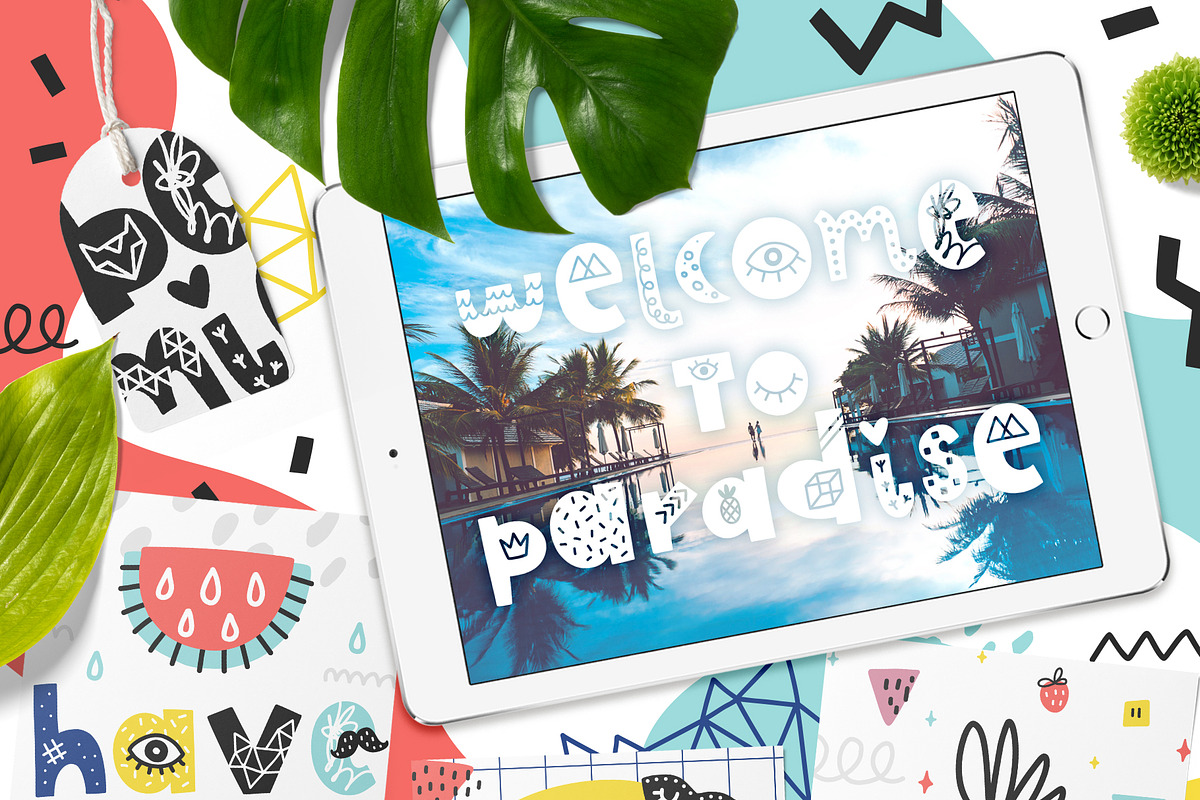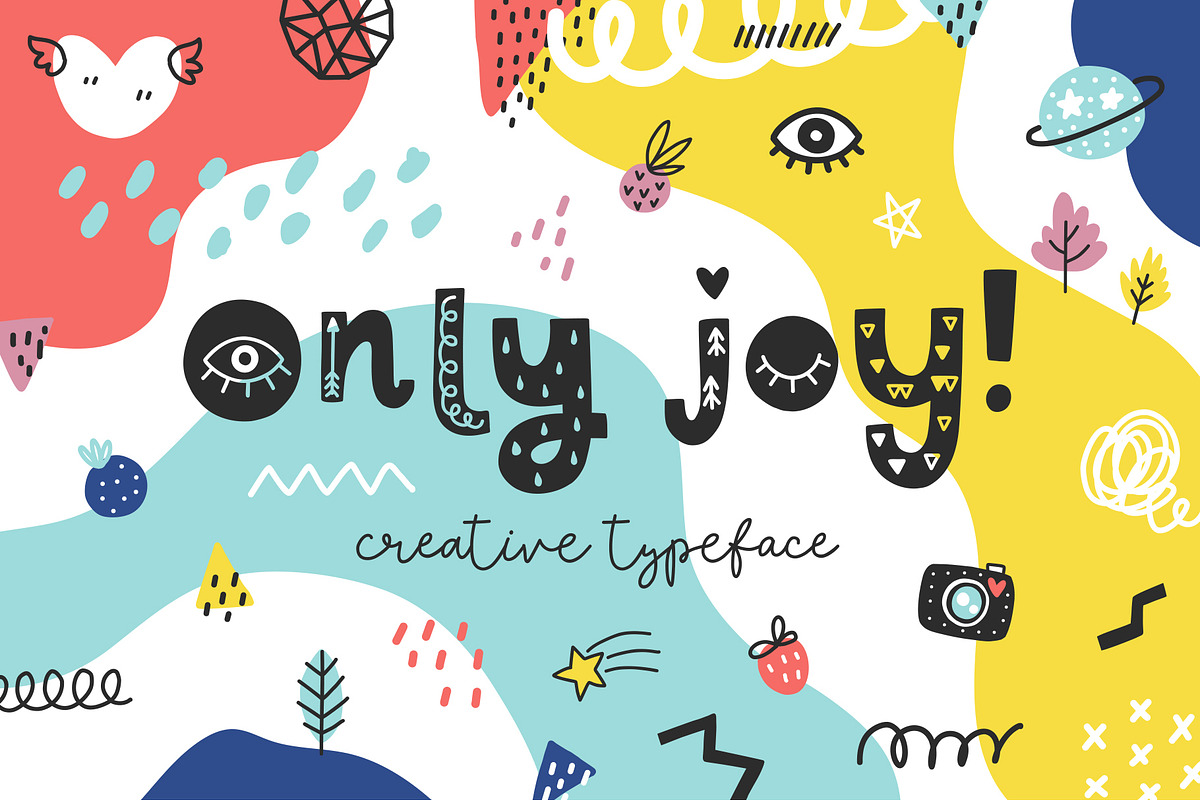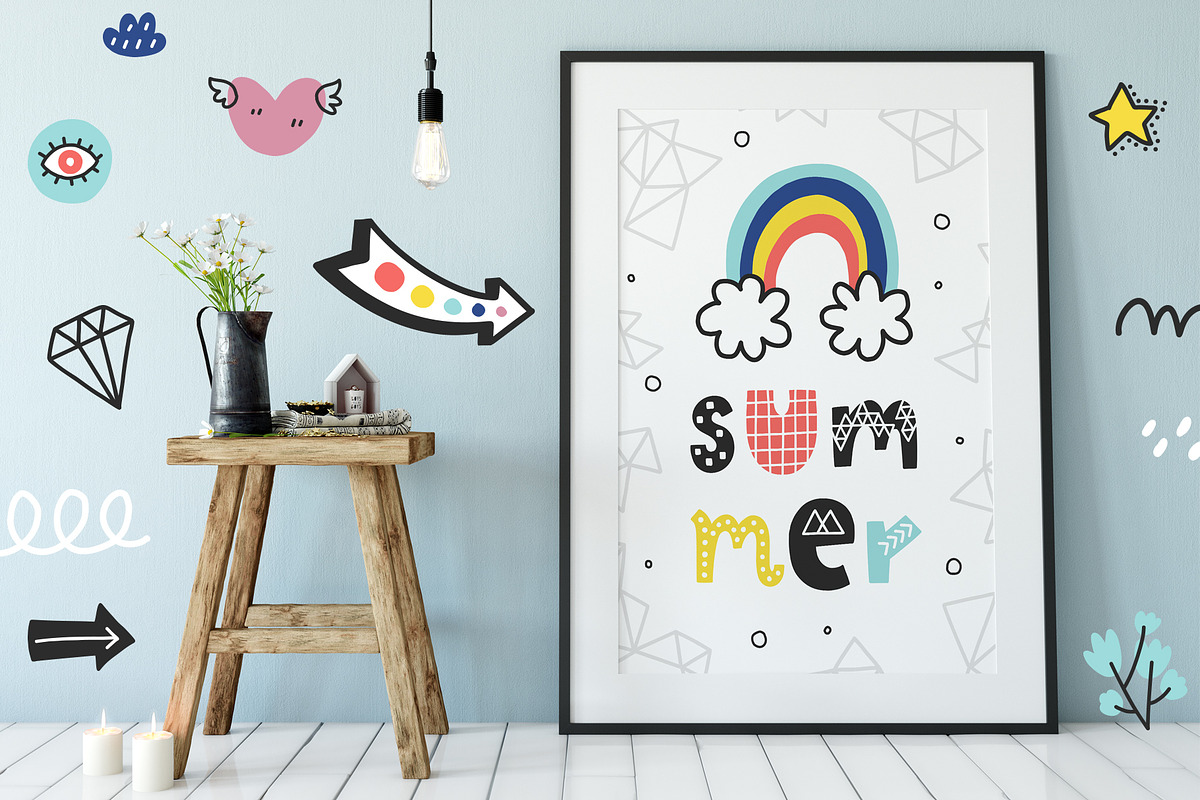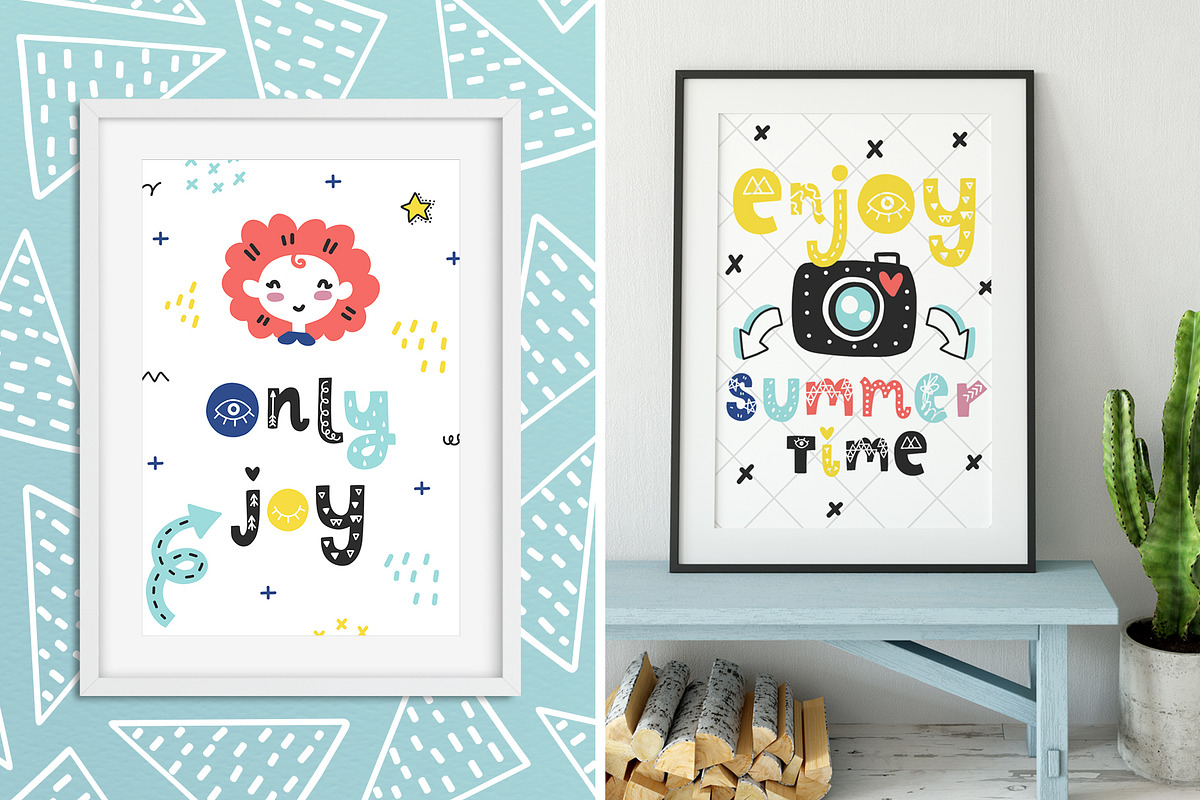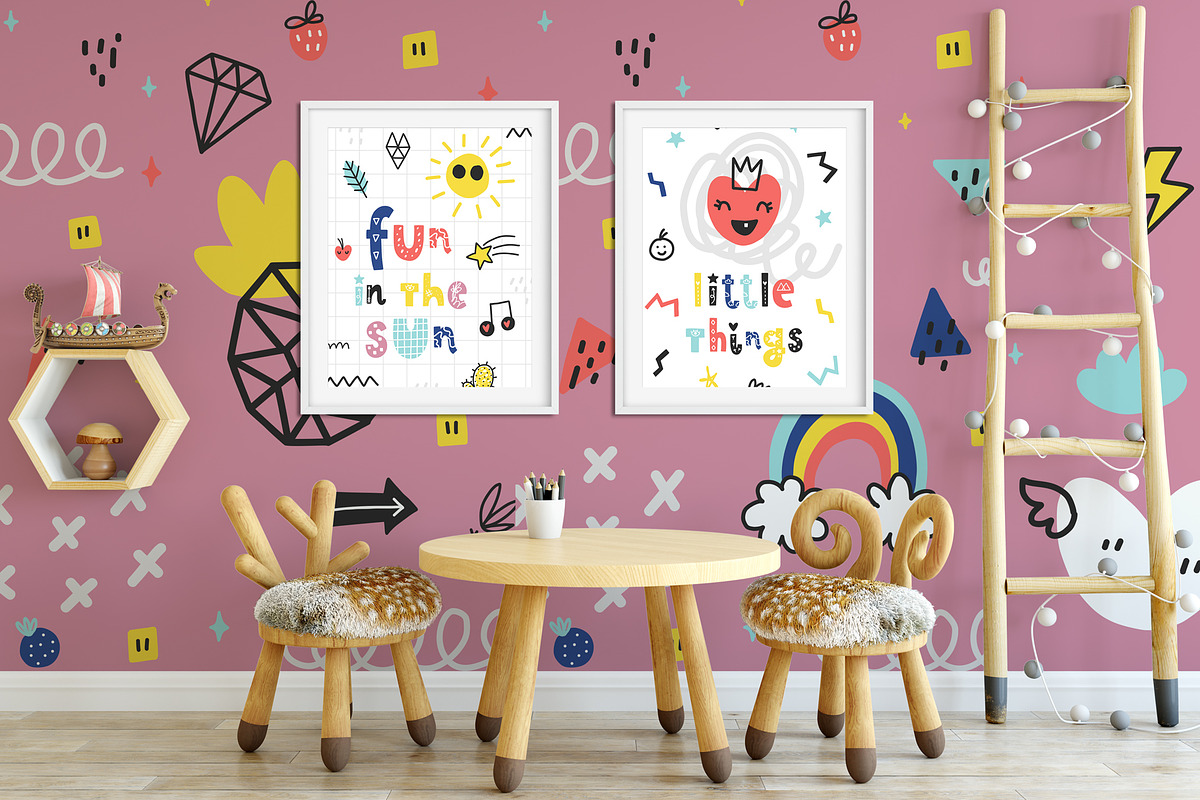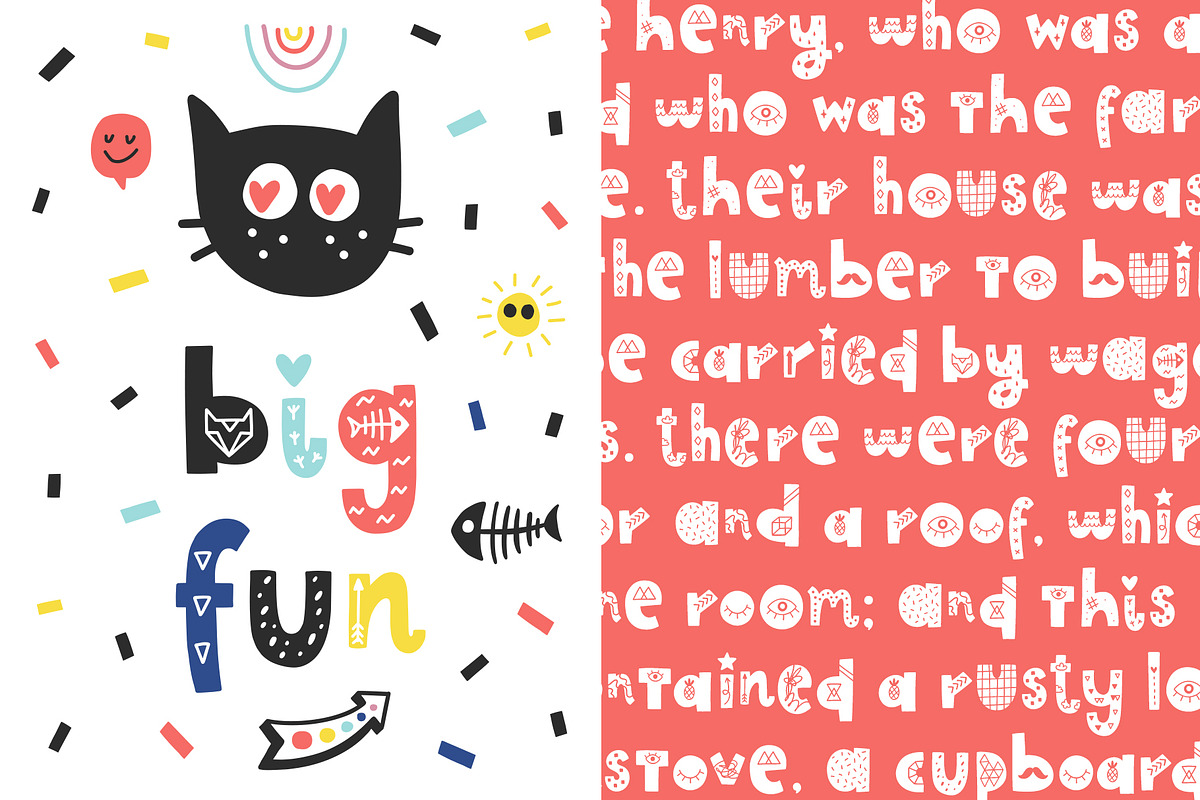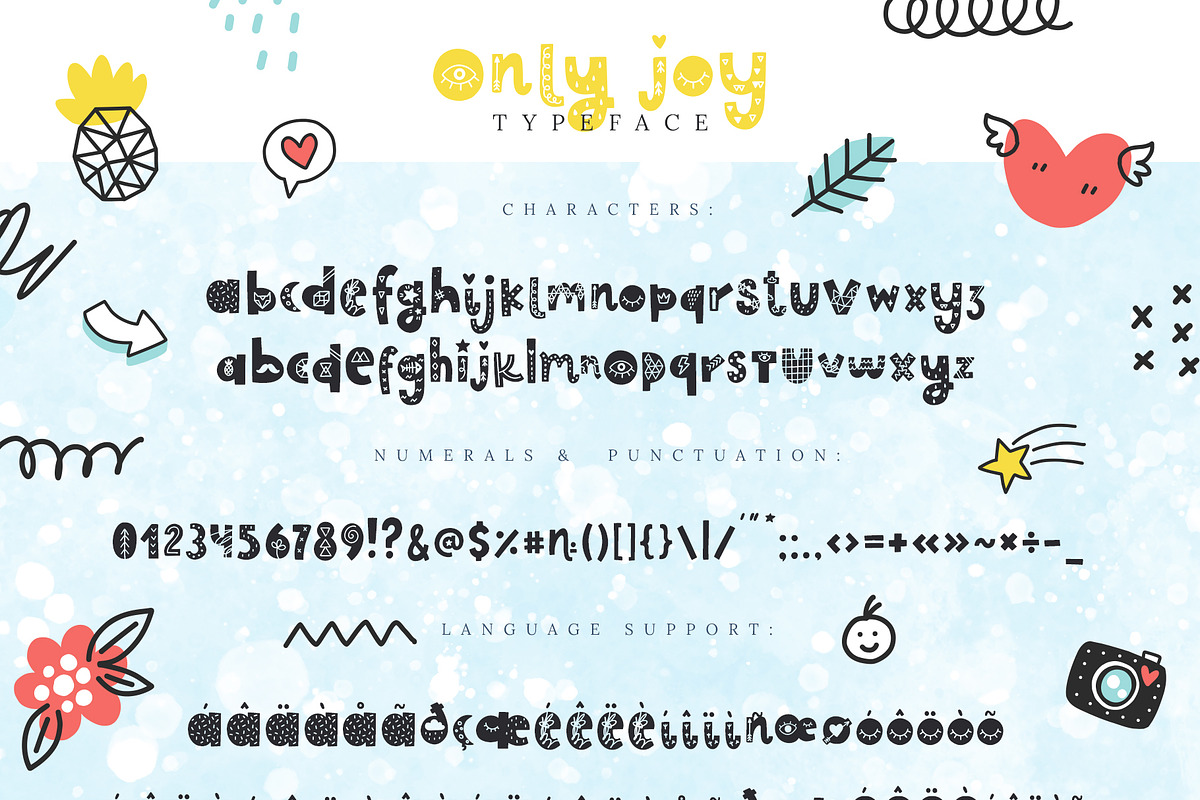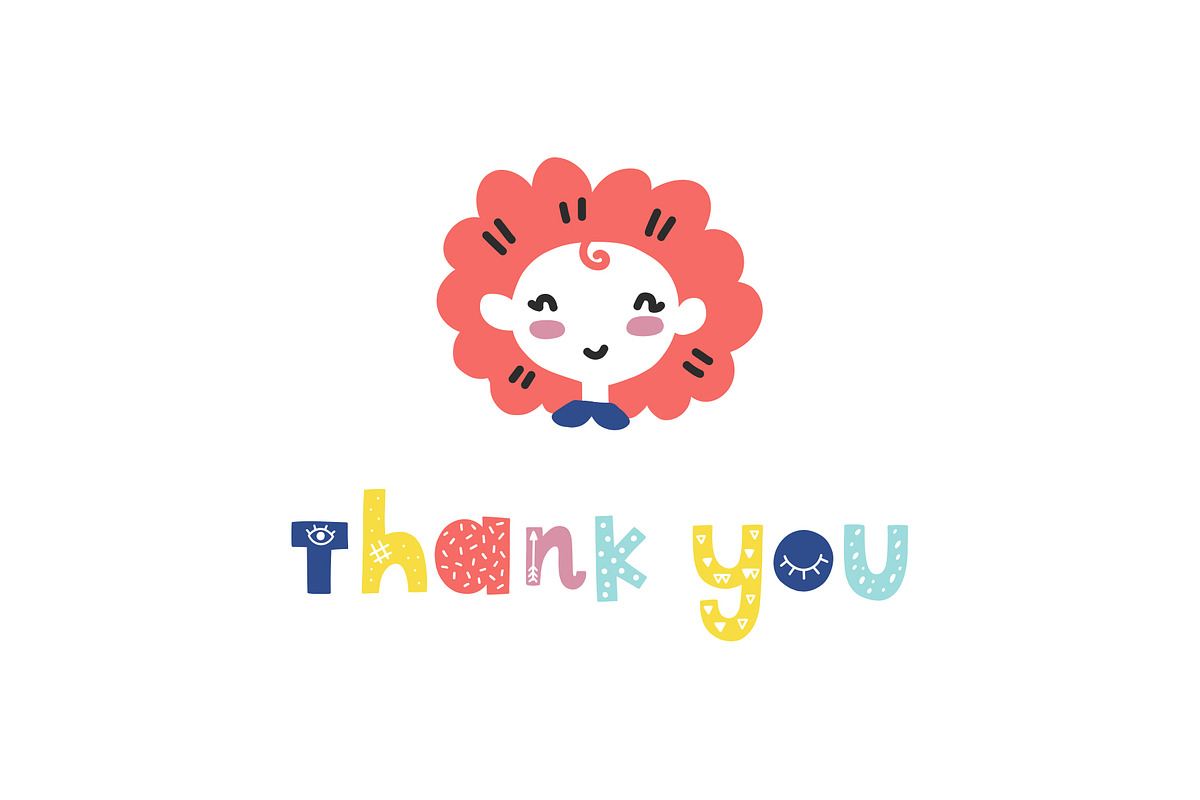
Only Joy typeface - Summer font
♥ Only Joy Typeface - creative summer font for your projects! ♥
This decorative font is perfect for cards, prints, logos, arrange illustration and decoration, projects in summer style.
It has upper and lower case letters, numbers, special characters, accents.